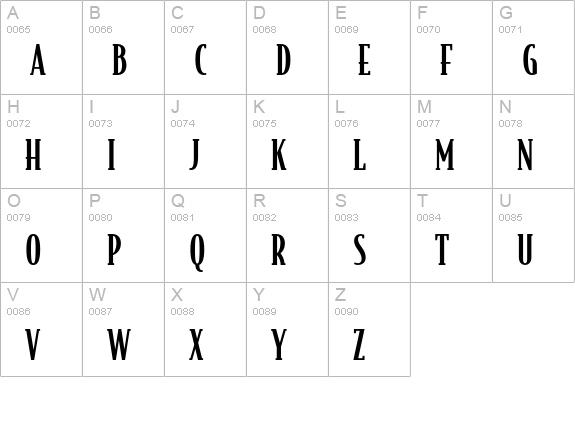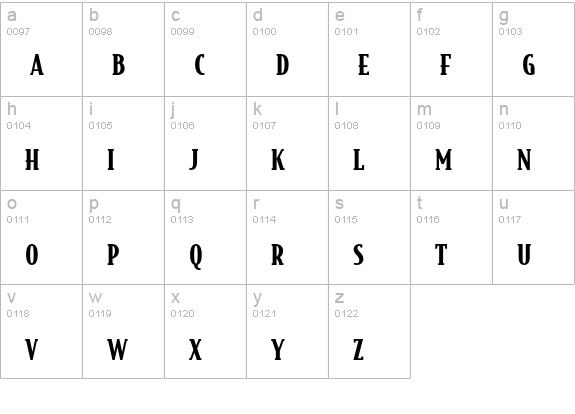
BodegaSerif-MediumSmallcaps font is a classic and elegant typeface that brings a touch of sophistication to any design project. Its medium weight and small caps feature make it versatile and suitable for a wide range of applications, from editorial designs to branding and packaging. The sharp serifs and subtle contrast in stroke weight give this font a timeless appeal that can elevate any text layout. What's even better is that BodegaSerif-MediumSmallcaps font is available for free download at FontsMarket.com. This means you can easily access and use this stylish font for your personal and commercial projects without any cost. Don't miss out on this opportunity to enhance your designs with the beauty and refinement of BodegaSerif-MediumSmallcaps font. Download it now and see the difference it can make in your typography!